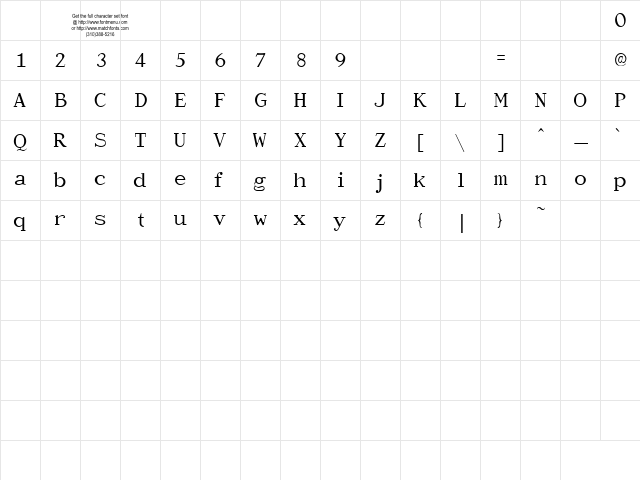
Chap Clerk Tryout Regular
Design Context for Chap Clerk Tryout Typeface
Chap Clerk Tryout takes a measured approach to typography — its balanced proportions and neutral character make it a reliable workhorse for both digital and print work.